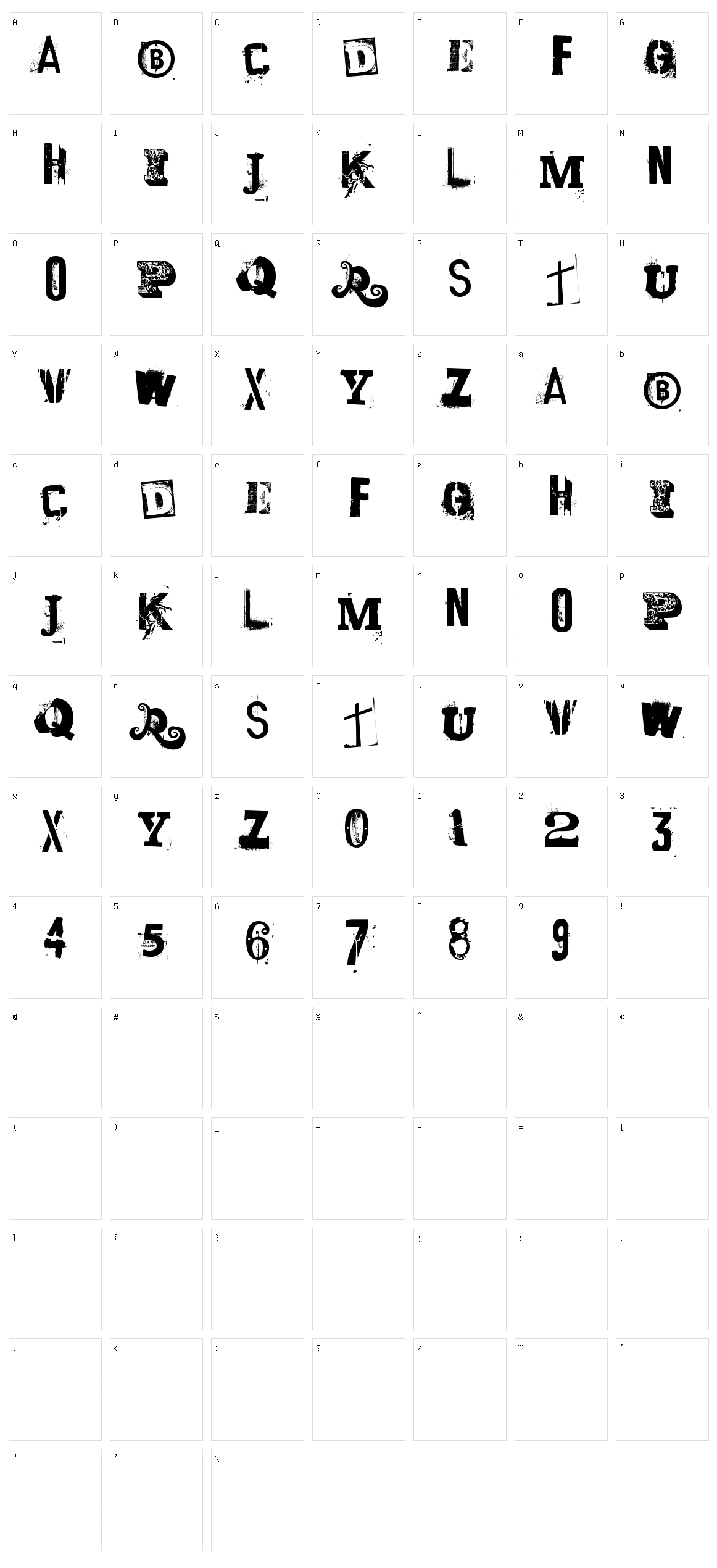
The free font Laundromat 1967 is carefully designed by Segments Design (aka Last Soundtrack), showcasing a thoughtful balance of creativity and usability and falls under the Distorted font style. When you download the ZIP file, it contains only 107.06 KB of font files, making it lightweight and quick to download. Please review the license details below to understand permitted usage and distribution rights. If license information is not available, we recommend using this font for personal projects only or contacting the author directly for commercial usage permissions.